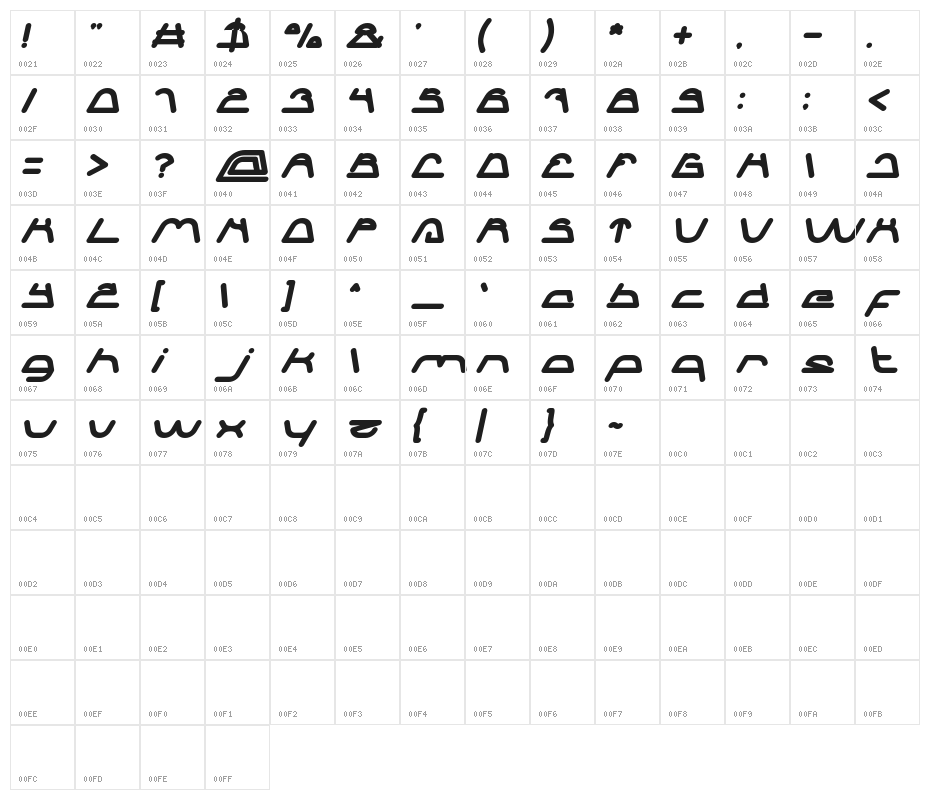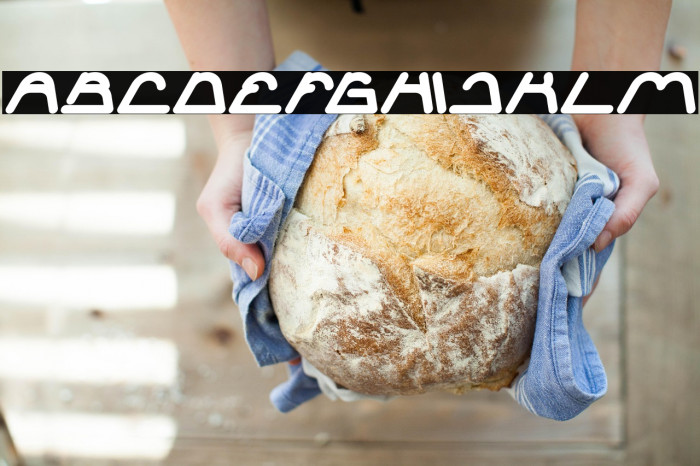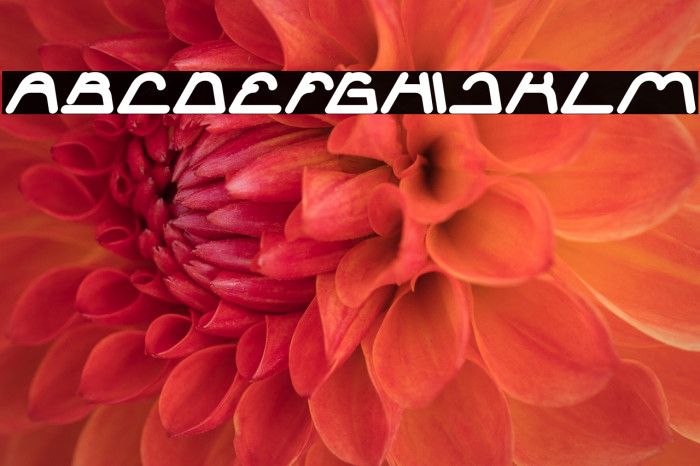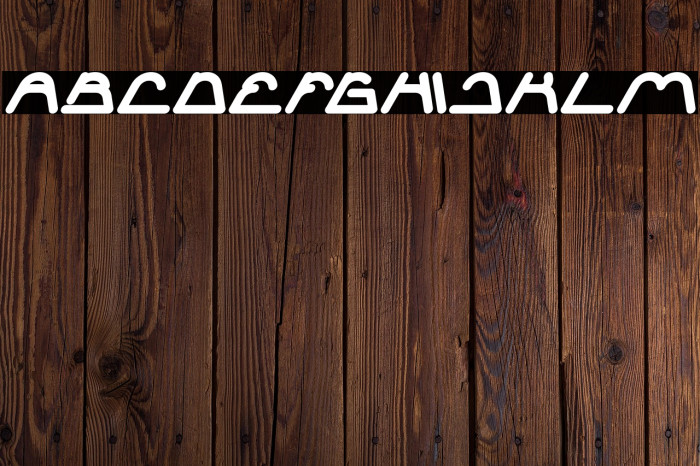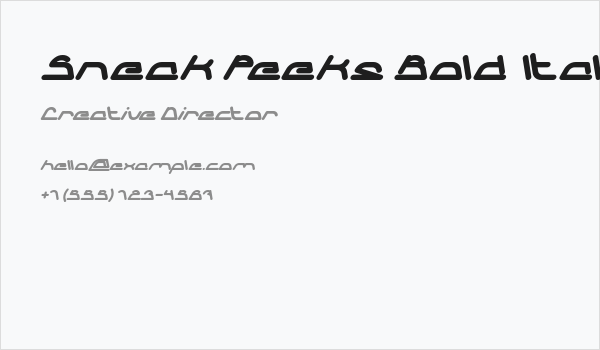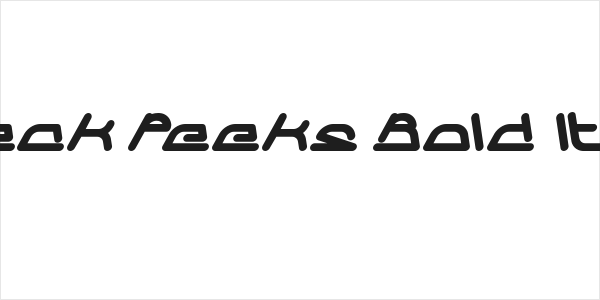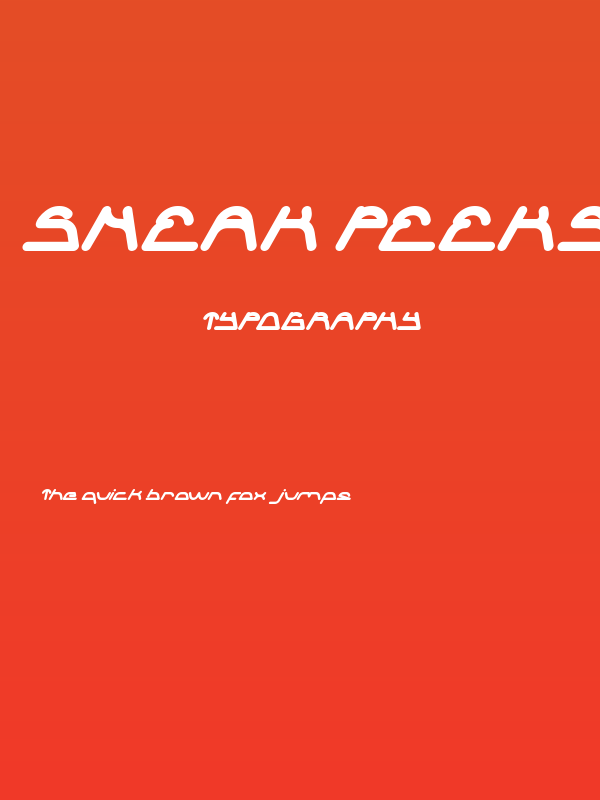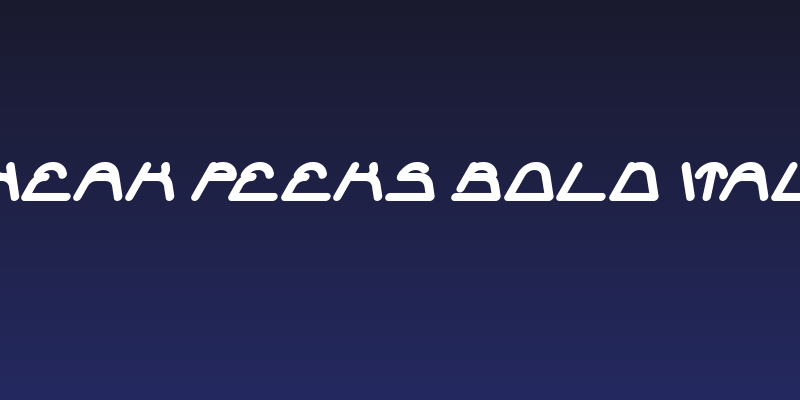
Sneak Peeks Bold Italic Font
Sneak Peeks Bold Italic Description
This font features a bold and italicized style with a modern, futuristic appearance. The characters are rounded and connected, giving it a smooth, flowing look. The uppercase and lowercase letters maintain a consistent style, with a slight slant that enhances its dynamic feel. Numbers and special characters follow the same design principles, ensuring uniformity across all glyphs. The overall aesthetic is sleek and contemporary, making it suitable for projects that require a forward-thinking and innovative touch.
Proposed ProjectsIdeal for tech branding, futuristic posters, sci-fi book covers, and innovative product packaging.